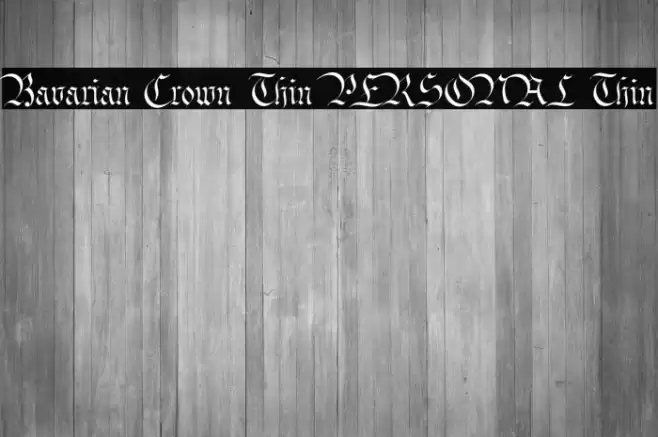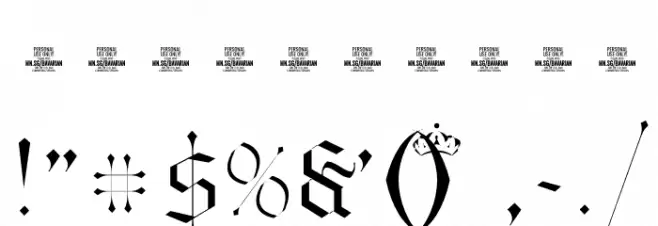
Bavarian Crown Thin PERSONAL Thin Font
Bavarian Crown Thin PERSONAL Thin Description
This font features a traditional blackletter style with sharp, angular lines and intricate details. The uppercase letters are bold and commanding, while the lowercase letters maintain the same intricate design with a slightly softer appearance. The numerals and special characters are consistent with the overall gothic aesthetic, featuring sharp edges and dramatic flourishes. This font evokes a sense of historical elegance and is reminiscent of medieval script, making it suitable for projects that require a touch of vintage or classic charm.
A traditional blackletter font with sharp, angular lines and intricate details from Regular fonts.
- Proposed Projects: Ideal for historical documents, medieval-themed designs, invitations, and branding that requires a classic or vintage touch.
- Overall Style: Vintage
- Use Case: Logos, Headlines, Decorative text